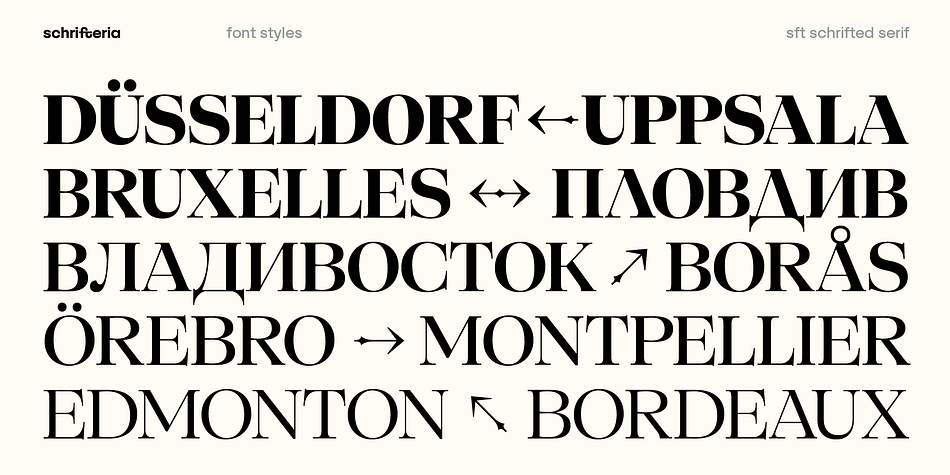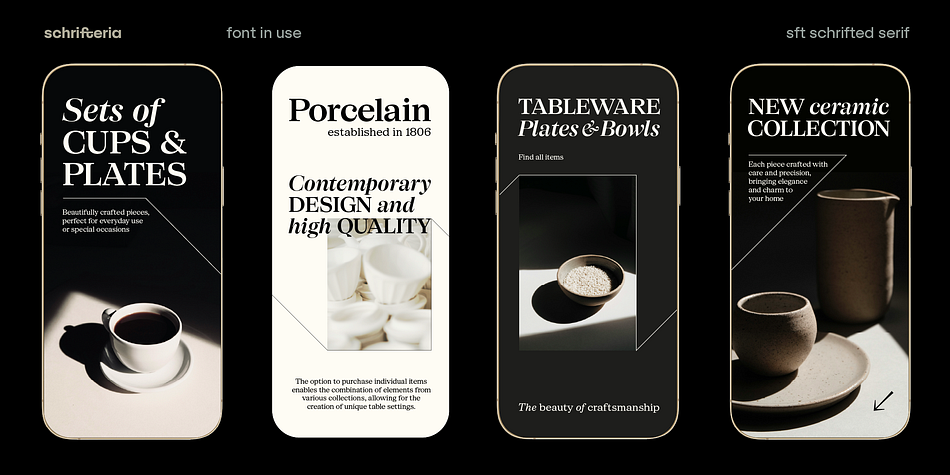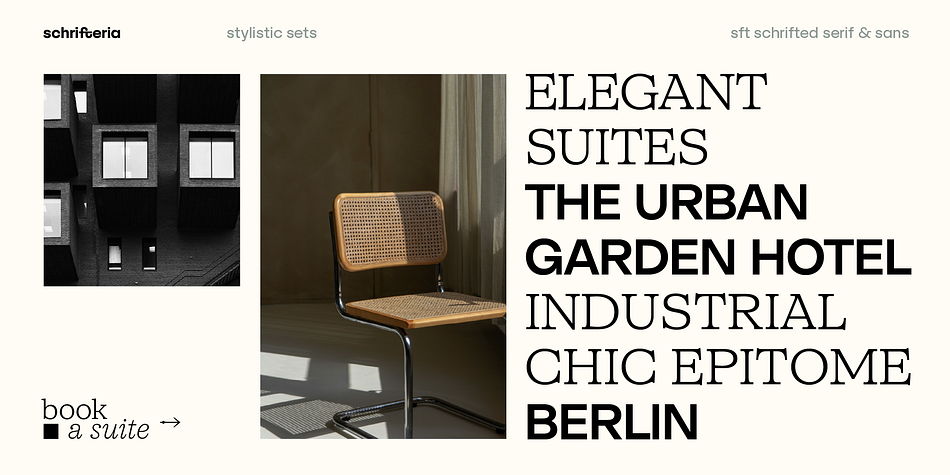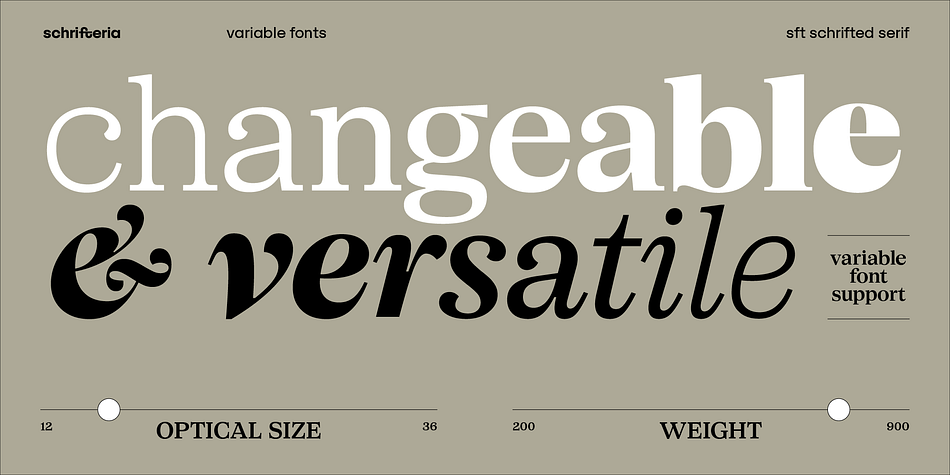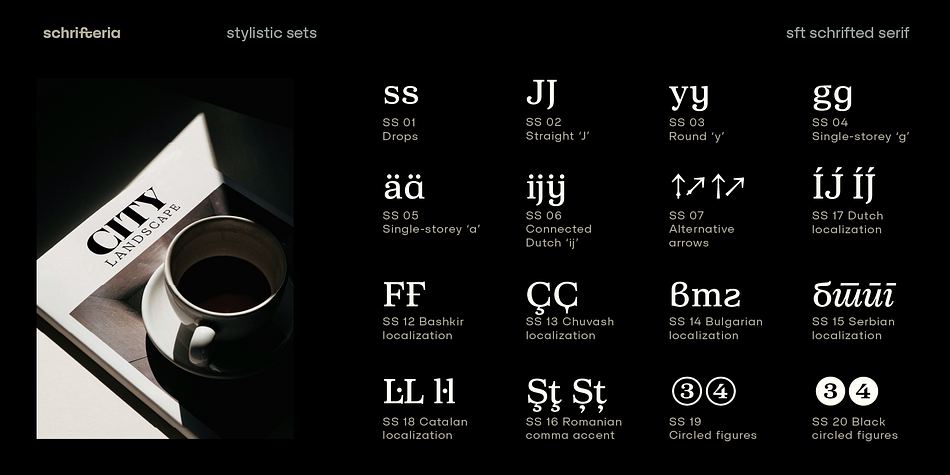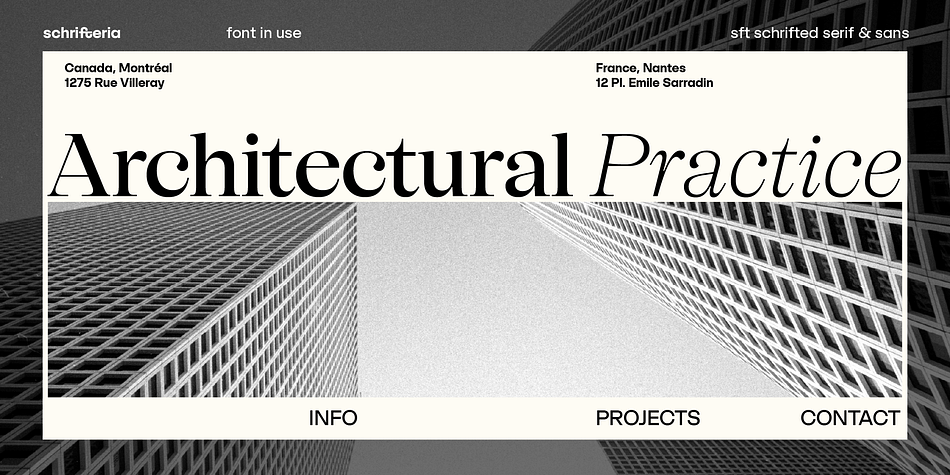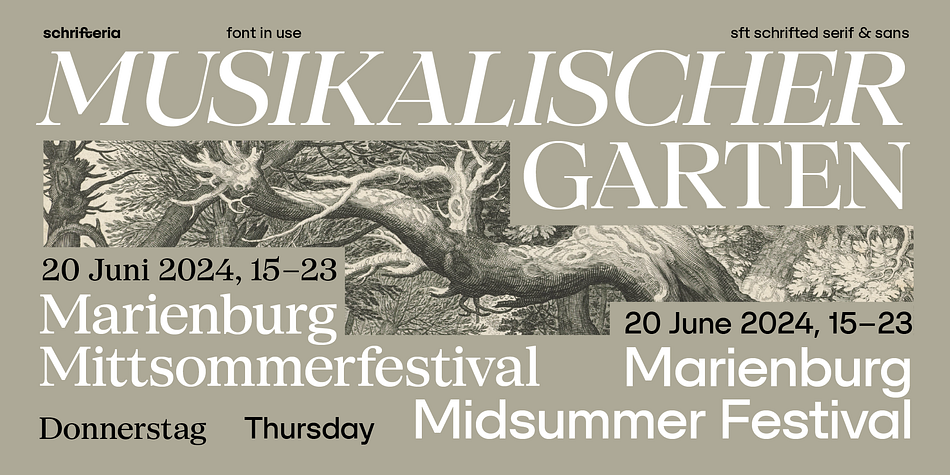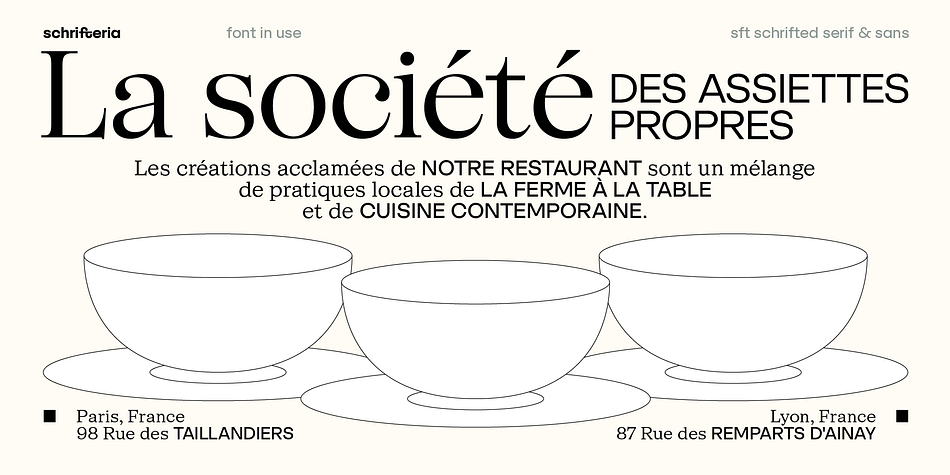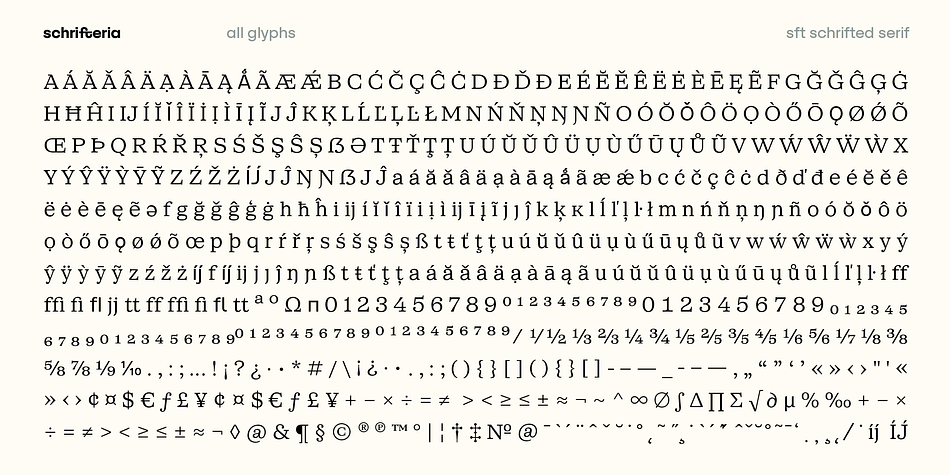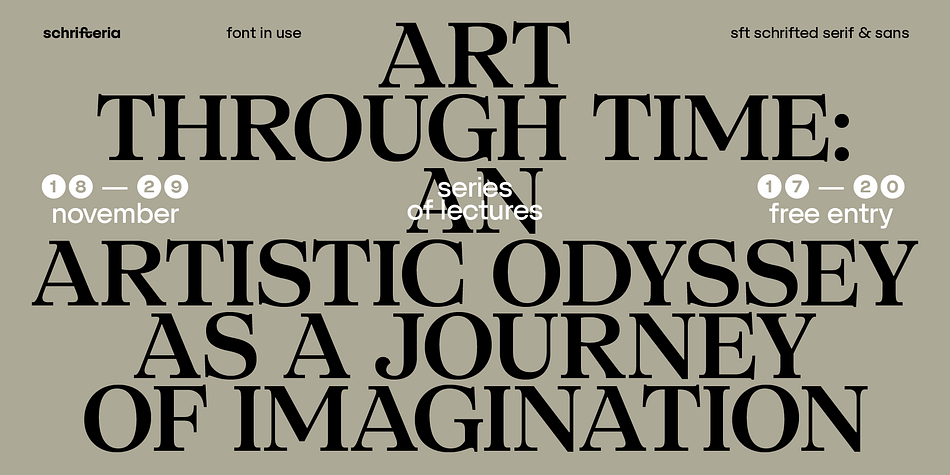
SFT Schrifted Serif
Designed by Yulia Gonina, SFT Schrifted Serif is a serif font family. This typeface has fifty styles and was published by Schrifteria Foundry.
Like its older sibling, SFT Schrifted Sans, this font draws inspiration from the visual environment of Stockholm, but with a more romantic touch, predominantly inspired by the districts of Gamla Stan and Södermalm. Graceful historic buildings, bold usage of antiqua in unexpected contexts, and an overall dynamic, lively, organic mood with botanical motifs leave no one indifferent.
The font is constructed upon smooth and graceful curves that convey a sense of lively movement. You’ll find numerous rounded closed shapes with endings resembling droplets, which allude to botanical motifs. The structure of the SFT Schrifted Serif letters echoes those of the SFT Schrifted Sans, making them ideal companions.
This typeface consists of three optical sizes. “Text” is for use in small sizes and long passages of text. “Display” is for expressive and large headlines. “Subhead” is a versatile font suitable for both text and small-sized headlines.